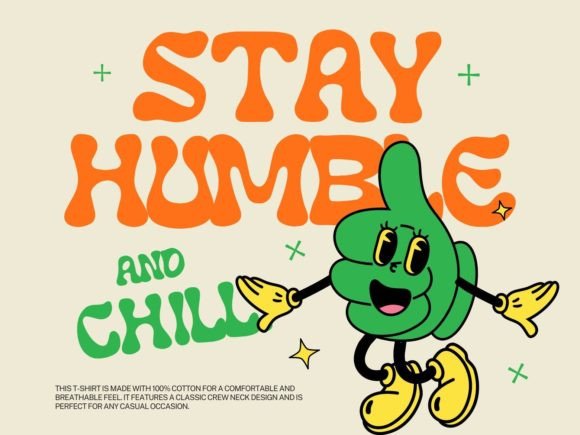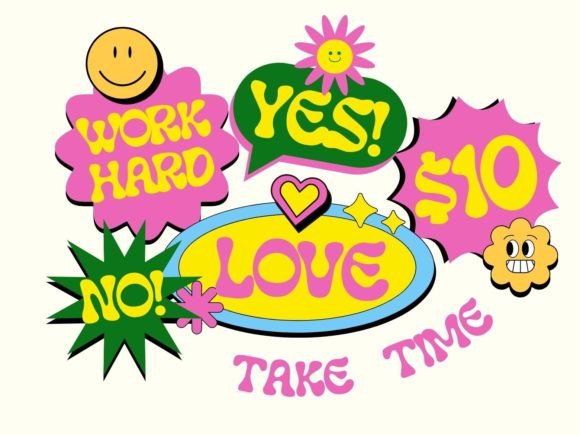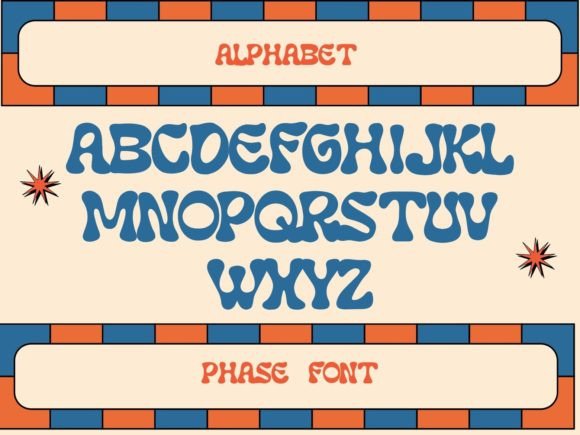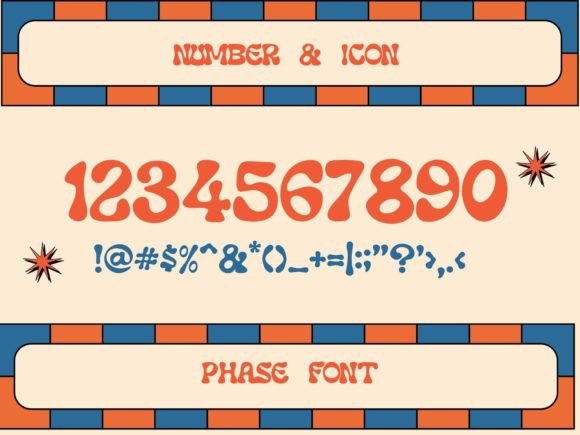
Introduction to Phase Font
Have you ever stumbled upon a design that instantly brightens up your day? Maybe it’s a social media post, a logo, or a beautiful illustration that leaves you feeling inspired and motivated. For designers, finding that perfect design element can be a game-changer. It’s what sets apart a good design from an exceptional one. And that’s exactly what we’re about to explore – a delightful font that’s sure to elevate your creative projects.
Meet Phase Font, a charming display font that brings a playful touch to your designs. With its rounded letterforms and welcoming demeanor, Phase Font exudes approachability and warmth, making it the perfect addition to any creative project. Whether you’re working on a logo, a social media campaign, or a beautiful illustration, Phase Font is a valuable design resource that’s sure to bring a high-quality, modern aesthetic to your work.
Key Features of Phase Font
- Comes with a transparent background, ideal for design resources that require a clean and minimalist look.
- Phase Font is designed to be highly versatile, suitable for a wide range of creative projects, from logos to typography-based art.
- Features a high-resolution design, ensuring crisp and clear display on various devices and screens.
- Includes a comprehensive character set, covering a wide range of languages and characters.
Honest Review: Phase Font
I recently stumbled upon Phase Font and was excited to give it a try. As a designer, I’m always on the lookout for high-quality design resources that can elevate my creative projects.
What works well with Phase Font is its versatility. It’s a free download, which is a definite plus, and it comes with a range of styles that can be used in various contexts. I particularly like the fact that it has a transparent background, which makes it easy to use in graphic design and digital art projects.
- ✨ High-quality design with a professional finish
- ✨ Versatile font with multiple styles
- ✨ Transparent background for easy use in design projects
However, I did encounter a few limitations. The font could benefit from more character options, and the styles can feel a bit inconsistent at times.
- ⚠️ Limited character options
- ⚠️ Inconsistent styles across different font weights
Overall, I think Phase Font is a solid addition to any designer’s toolkit. While it may not be perfect, its strengths far outweigh its weaknesses, making it a great free download for anyone looking to add some visual flair to their creative projects.
Phase Font
Phase Font is a high-quality design resource that offers a free download for creative projects. This versatile font is perfect for designers and artists looking to add a touch of sophistication to their work.
Tips for Getting the Most Out of Phase Font
To get the most out of Phase Font, use it with a transparent background to create a seamless design. You can also experiment with different font sizes and colors to add visual interest to your work.
Phase Font is perfect for a variety of design projects, including:
Yes, Phase Font is a transparent background font, which means you can easily place text over any background image or color. This feature makes it ideal for creative projects that require a clean and modern look.